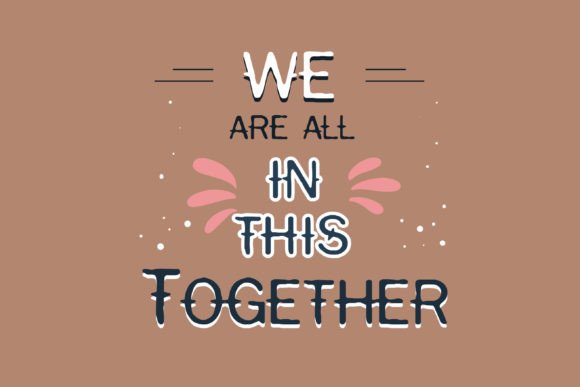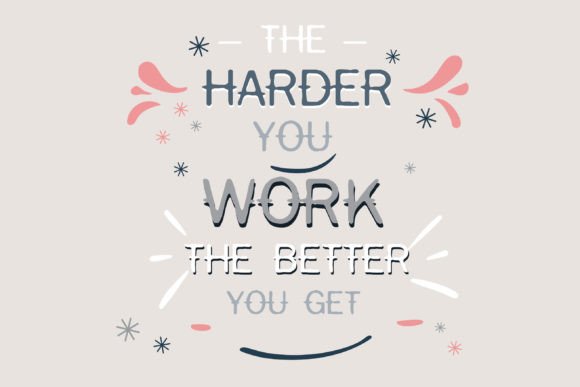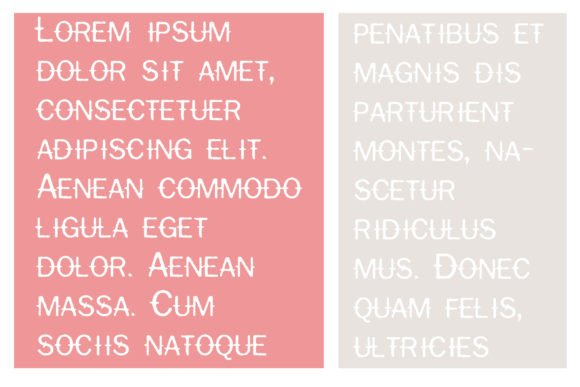
Introduction to Pony Express Font
Experience the bold and modern appeal of an attractive sans-serif font.
Pony Express features thick and striking lines that create a powerful and commanding presence, making it perfect for headlines, titles, and logos Its eye-catching design is sure to make a lasting impression, elevating any design project to the next level.
Key Features of Pony Express Font
Why Choose Pony Express Font?